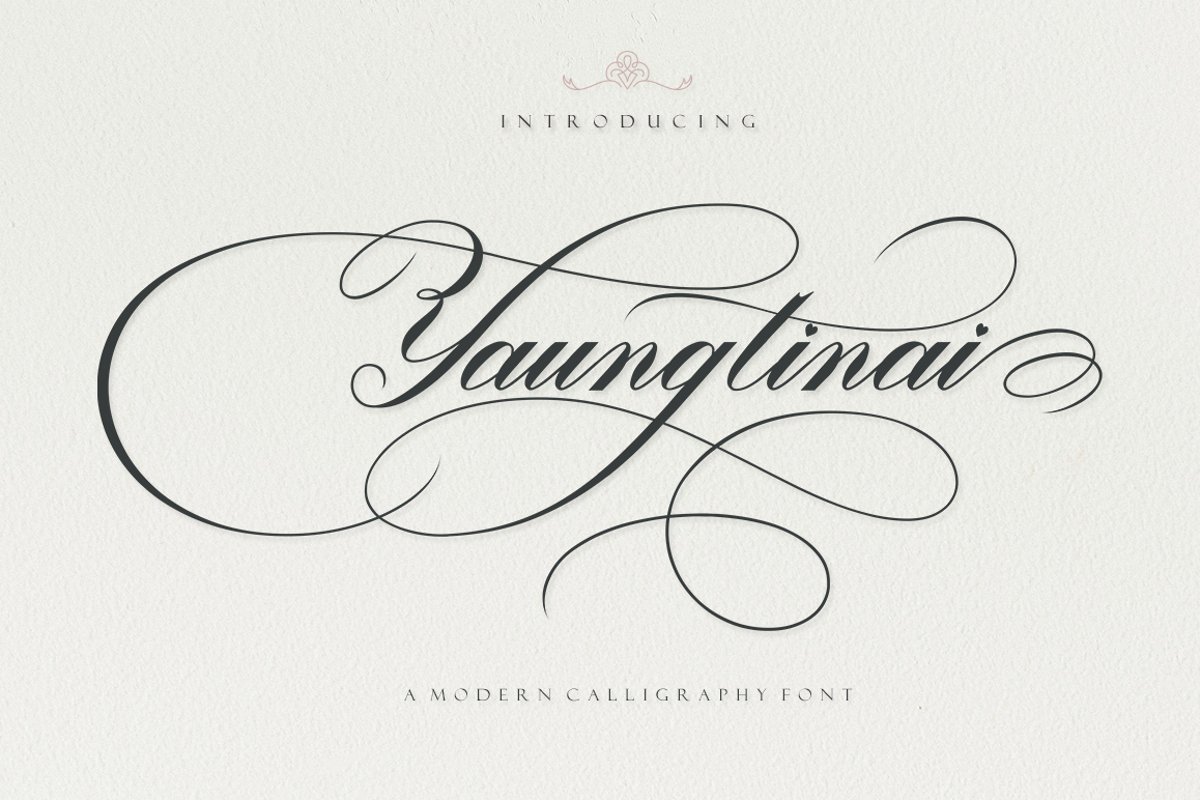
Yaungtinai
Yaungtinai is actually a unique font, I made it with the relaxed spontaneity of my hands. designing formal fonts but has a classic element, which makes it very suitable for wedding media, book covers, greeting cards, logos, branding, business cards and certificates, even for any design work that requires a classic, formal or fancy appearance.
Try Yaungtinai, enjoy the wealth of OpenType features and let the powerful yet elegant excitement delight you and increase your creativity! You can use this font very easily.
There are many features in it. Contains the full set of lowercase and uppercase letters, punctuation, numbers, and multilingual support. This font also includes several alternative Ligature and Stylistic Set styles for those of you who have software that can work with OpenType (Corel Draw / Photoshop / Illustrator / InDesign).